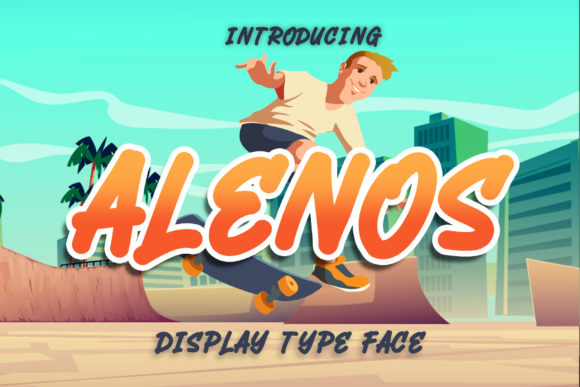
The Ultimate Guide to Alenos Font: Adding a Touch of Joy to Your Designs
I’ll never forget the time I was working on a children’s book project, and I just couldn’t find the right font to match the playful tone of the story. The client wanted something fun, quirky, and engaging, but everything I tried seemed either too boring or too over-the-top. That’s when I stumbled upon Alenos Font, and it was love at first sight! 💕
Alenos is a fun and quirky display font that’s perfect for cartoon-related designs, children’s games, quotes, titles, brand names, book covers, posters, or just any creation that requires a touch of joy. In this article, I’ll share my honest review of Alenos Font, provide a practical guide on how to use it, and explore similar fonts and alternatives.
- ✅ Unique and playful design that’s sure to grab attention
- ✅ Highly legible, even at smaller sizes
- ✅ Versatile and can be used for a wide range of projects
- ✅ Easy to pair with other fonts for a cohesive look
- ⚠️ May not be suitable for body text or long-form content due to its display nature
- ⚠️ Some characters may not work well in all contexts, such as the lowercase ‘l’ and ‘I’
The Story Behind Alenos Font
Alenos Font was designed with one goal in mind: to bring a touch of joy and playfulness to designs. The designer, who wishes to remain anonymous, was inspired by the world of cartoons and children’s books. They wanted to create a font that would make designers and their clients smile, and Alenos Font was born.
Q: What is Alenos Font best used for?
A: Alenos Font is best used for cartoon-related designs, children’s games, quotes, titles, brand names, book covers, posters, or just any creation that requires a touch of joy.
Q: Is Alenos Font suitable for body text?
A: No, Alenos Font is a display font and may not be suitable for body text or long-form content.